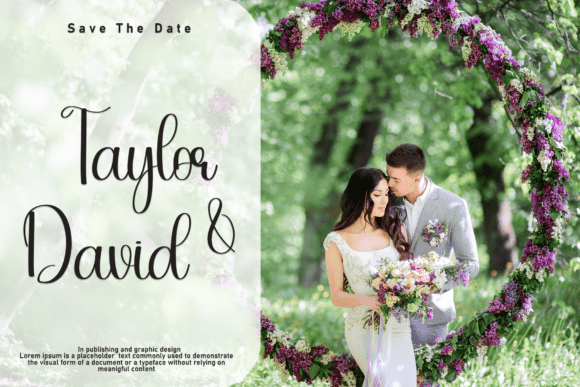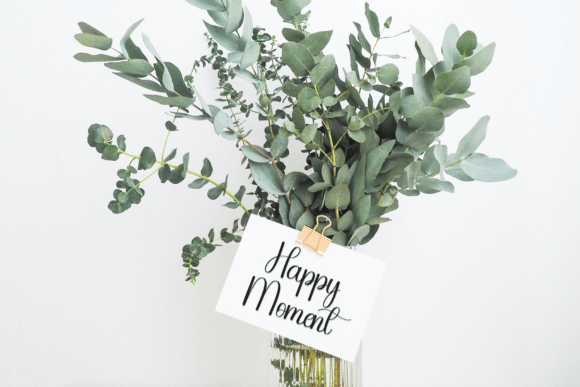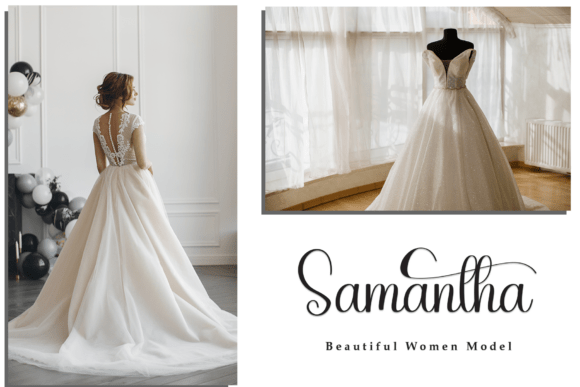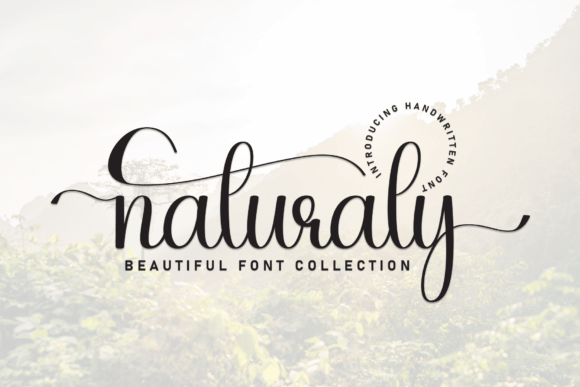
Introduction to Naturaly Font
Naturaly is a stylish script font that exudes creativity and modern elegance.
Featuring flowing strokes, graceful curves, and expressive letterforms, it captures the beauty of hand-drawn calligraphy with a contemporary flair Ideal for logos, invitations, packaging, and social media graphics, it adds an artistic and sophisticated touch to any design.